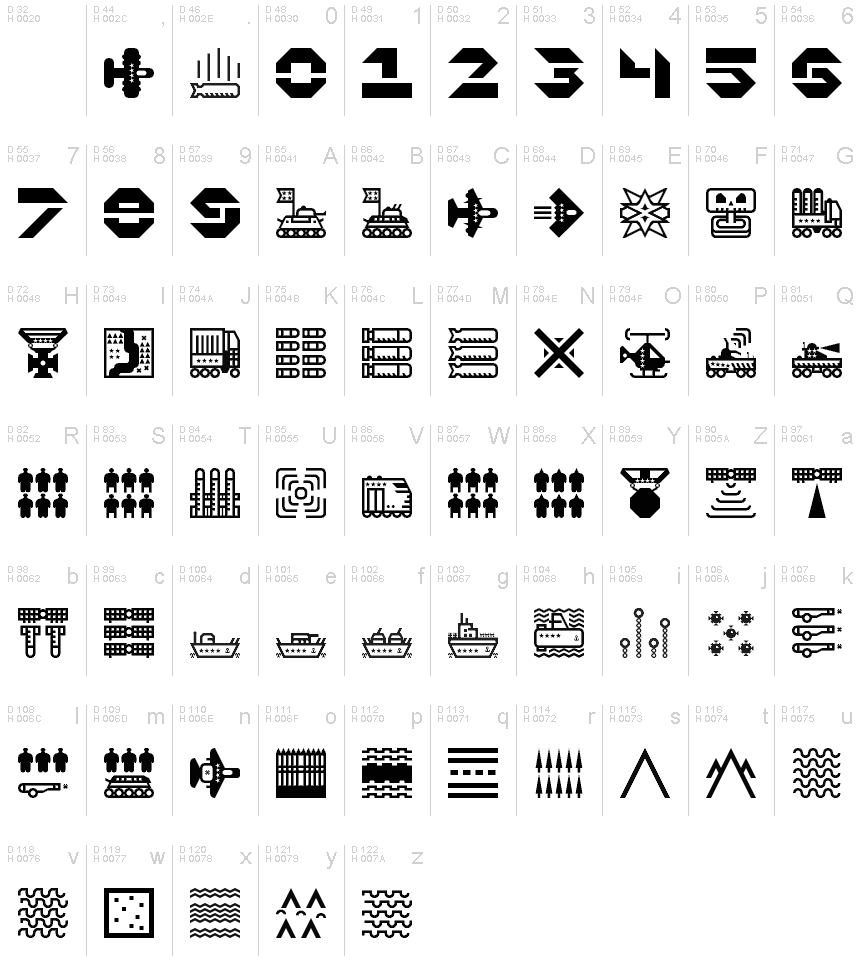
Militaricons Regular
Designer description: Military and wargame related icons. The 4 stars are meant to represent a player number. Erase the stars to make pieces for Players 1, 2, and 3.
A - Tank
B - Anti-Aircraft Gun
C - Jet Fighter
D - Stealth Bomber
E - Battle/Explosion
F - Big Explosion/Nuclear Explosion
G - Missile Truck/Mobile Launcher
H - Flying Cross Medal - for distinguished aviators
I - Strategic Map
J - Military Convoy Truck
K - Bullets
L - Shells
M - Bombs
N - Strike Zone
O - Sm. Helicopter
P - Surface-to-Air Radar
Q - Surface-to-Surface Radar
R - Infantry Section
S - Civilians
T - ICBMs
U - Radar/Comms Coverage Area
V - APC
W - POWs
X - Opposing Forces
Y - Navy & Marine Corps Medal - for noncombat heroism
Z - Communications Satellite
a - Reconaissance Satellite
b - Weapon Satellite
c - Satellite Array
d - Patrol Boat
e - Frigate
f - Destroyer
g - Aircraft Carrier
h - Submarine
i - Mines
j - Depth Charges
k - Artillery
l - Artillery Division
m - Mechanized Infantry
n - AWACS/Early-Warning Aircraft
o - Fortifications
p - Trenches
q - Terrain (Road)
r - Terrain (Woodland)
s - Terrain (Mountain)
t - Terrain (Mountain Range)
u - Terrain (Calm Seas)
v - Terrain (Rough Seas)
w - Terrain (Desert/Sand)
x - Terrain (Wetlands/Mud)
y - Terrain (Hills)
z - Terrain (Lake/River)
. - Falling Bomb
, - Transport/Cargo Plane
0-9 - Stencil Numerals